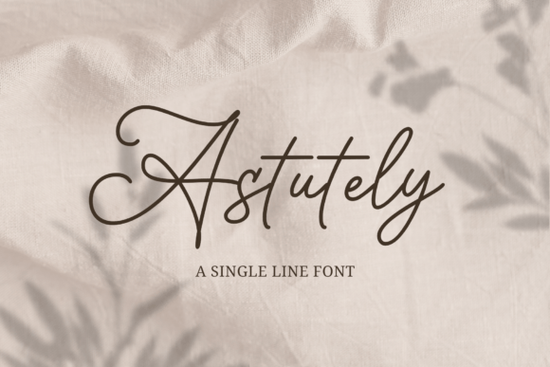
If you're looking for a handwritten font that feels personal but polished something that works just as well on a wedding invitation as it does on a handmade soap label Astutely Font is worth your attention. It’s not overly ornate, nor is it too casual. Instead, it strikes a quiet balance: a single-line sketch style with refined spacing and subtle variation in stroke weight. That makes it especially useful for designers and small business owners who need legibility and character without sacrificing versatility.
Who actually uses Astutely Font and why?
Small business owners printing custom stationery, crafters designing printable planners, and print-on-demand sellers creating minimalist wall art all reach for Astutely Font when they want handwriting that feels intentional not rushed or overly decorative. Its clean single-line construction means it scales well across sizes, from tiny tags to large-format posters. And because it avoids extreme flourishes, it pairs easily with sans-serif or serif typefaces in layouts no clashing, no visual fatigue.
Teachers building classroom resources often choose fonts with warmth and clarity, and Astutely Font fits right in alongside other thoughtful script options like Gorgeous Teacher Font. Similarly, if you’re designing farm-to-table packaging or rustic food labels, you’ll find its sketch-like texture complements the earthy vibe without feeling gimmicky much like Farm Fresh Font does for seasonal produce branding.
How does it compare to other popular script fonts?
Unlike bold script fonts that rely on thick contrast and dramatic swashes, Astutely Font leans into subtlety. It doesn’t shout it invites closer reading. That makes it a strong alternative if you’ve tried Bold Script Font and found it too heavy for delicate applications. It also differs from playful, bouncy scripts like Milkshake Font, which works beautifully for kids’ products but can feel out of place on professional or mature-branded items.
For those drawn to elegant, contemporary handwriting, Misha Salma Font offers more structure and consistency great for logos but Astutely Font brings gentle irregularity, like real pen-on-paper movement. That slight imperfection adds authenticity, especially in hand-lettered-style designs where “too perfect” can feel cold.
Where does it work best in real projects?
- Wedding stationery: Save-the-dates, menus, and place cards especially when paired with light neutral palettes and fine paper textures.
- Small-batch product labels: Honey jars, candle tags, herbal tea packaging anything where handmade appeal matters.
- Digital planners and printable journals: Its even rhythm supports readability at smaller sizes (10–12 pt), unlike some highly stylized scripts.
- Social media graphics: Quote posts, Instagram story highlights, or Pinterest pins its simplicity ensures clarity even on mobile screens.
One thing to keep in mind: since Astutely Font is a single-line design, it doesn’t include alternate characters or ligatures. That’s a trade-off for its clean, consistent look but it also means less time spent troubleshooting OpenType features in Canva or Silhouette Studio. If you value predictability over stylistic variety, that’s a real plus.
What to pair it with (and what to avoid)
It pairs naturally with simple, airy sans-serifs like Montserrat Light or Lato Regular fonts that don’t compete for attention. For contrast, try it beside a quiet serif like Cormorant Garamond (in regular weight) for formal invitations. Avoid pairing it with other script fonts unless one is significantly bolder or more structured like using Bold Script Font for headlines and Astutely Font for subheads. Mixing two delicate scripts tends to blur hierarchy rather than enhance it.
Also worth noting: while Astutely Font includes uppercase and lowercase letters, numbers, and basic punctuation, it doesn’t support multilingual characters beyond Western Latin. So if your project targets Spanish, French, or German speakers, double-check glyph coverage before finalizing layouts.